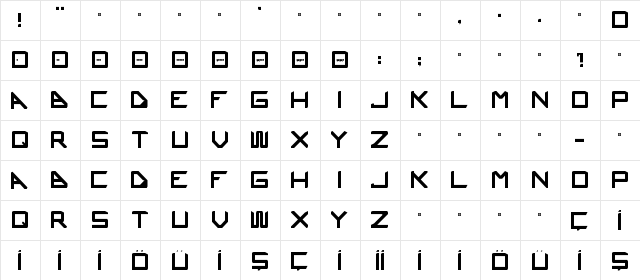
Ustura Regular
| Designer | rzrarti |
Design Context for Ustura Typeface
Ustura is a composed and adaptable typeface that performs quietly and consistently across a wide range of design contexts.